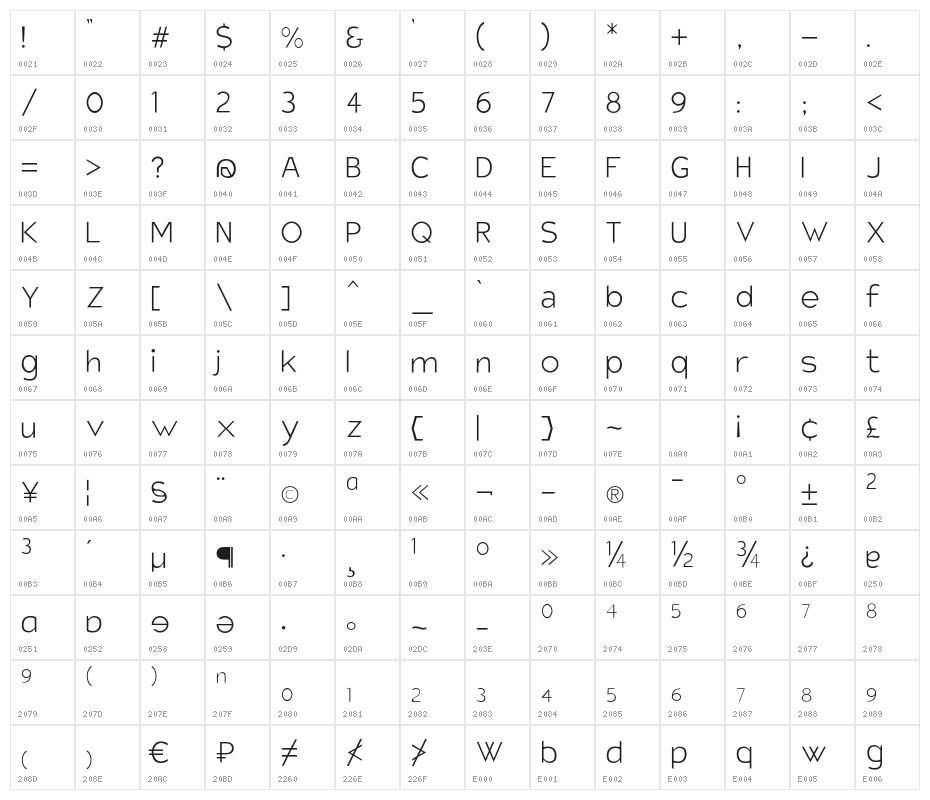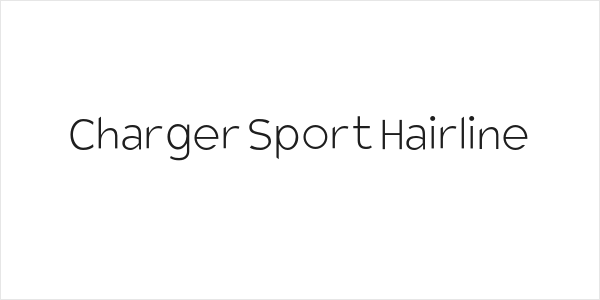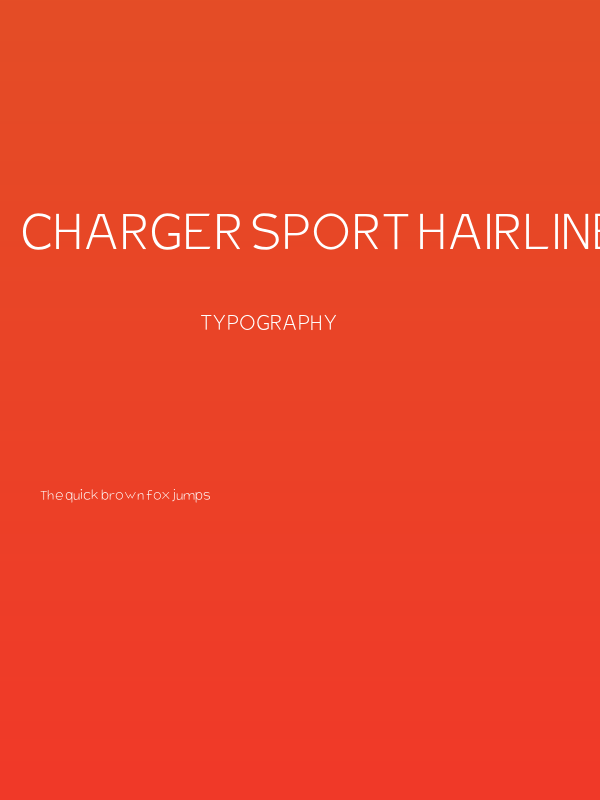
Charger Sport Hairline Font
Charger Sport Hairline Description
This font features a sleek, modern design with clean lines and a minimalist aesthetic. The characters are evenly spaced, providing a balanced and harmonious appearance. The uppercase and lowercase letters are well-proportioned, with a consistent stroke width that gives the font a uniform look. The numerals and special characters maintain the same stylistic elements, ensuring cohesion across all glyphs. This font's simplicity and elegance make it versatile for various design applications.
| Proposed Projects | Ideal for branding, digital interfaces, editorial design, and minimalist posters. |